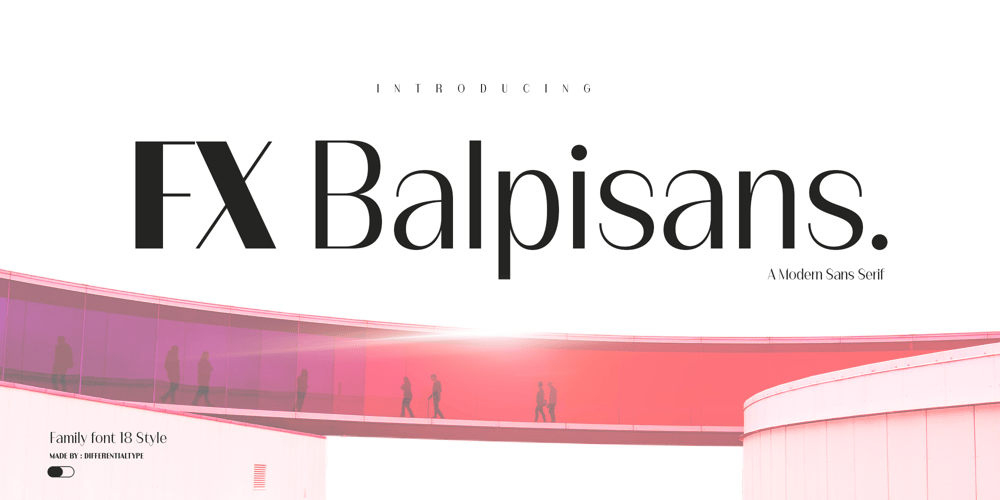
FX Balpisans Font Family was designed by Sidik Sidik and published by Differentialtype. FX Balpisans contains 18 styles and family package options. Introducing FX Balpisans, a contemporary font family that beautifully embraces contrast in letter thickness. Presenting 18 versatile styles, FX Balpisans creates a harmonious balance between thin and bold strokes, bestowing an air of elegance and luxury. The font’s ability to seamlessly blend in varying thickness levels makes it an impeccable choice for multiple projects. Whether it’s designing product branding, augmenting logos, crafting book covers or invitation cards, enhancing social media posts, enriching brochures or simply using it for document typing, FX Balpisans adds a touch of sophistication to all your creative endeavors.